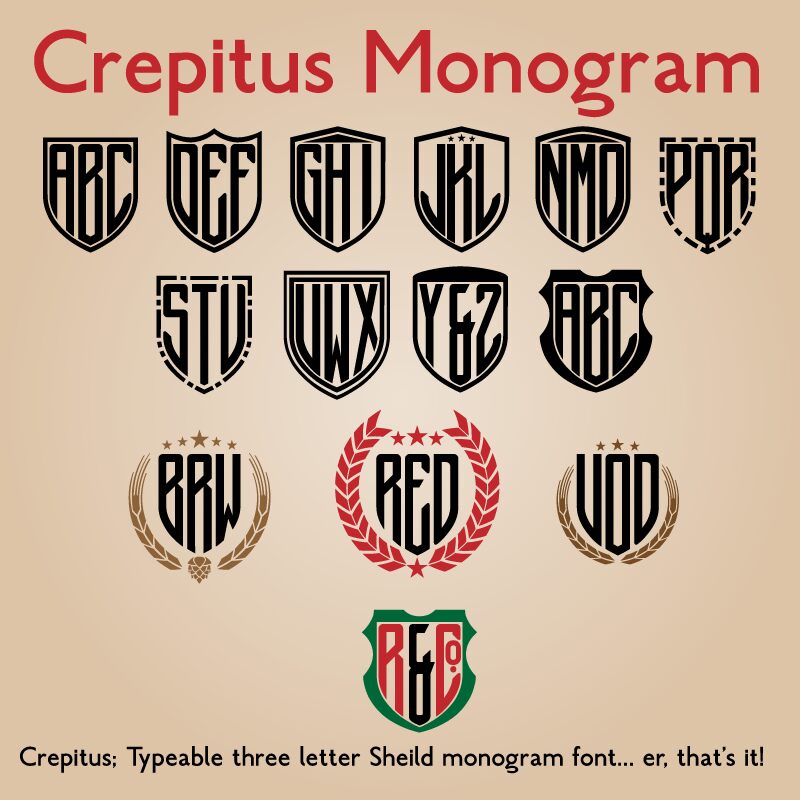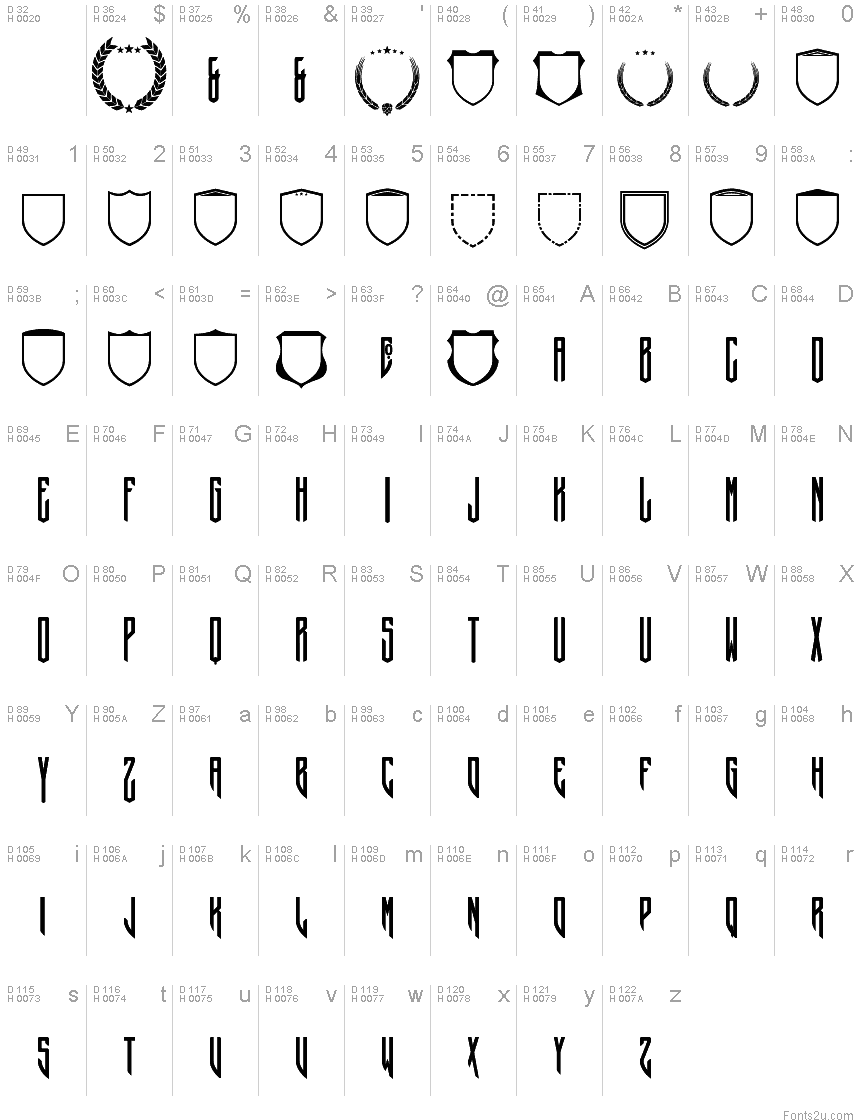
Crepitus monogram
Crepitus |ˈkrɛpɪtəs|
Noun [ mass noun ] Medicine
a grating sound or sensation produced by friction between bone and cartilage or the fractured parts of a bone.
Created as a distraction project whilst convalescing with broken ribs, Crepitus is named in honour of the background sounds my chest was making whilst I drew it.
Crepitus Monogram is a three letter Monogram font with added border goodness. It allows you to create 3 letter shield monograms.
The 3rd character requires discretionary ligatures to be enabled in the app used for setting the monogram, so check app documentation for how to enable discretionary ligatures.